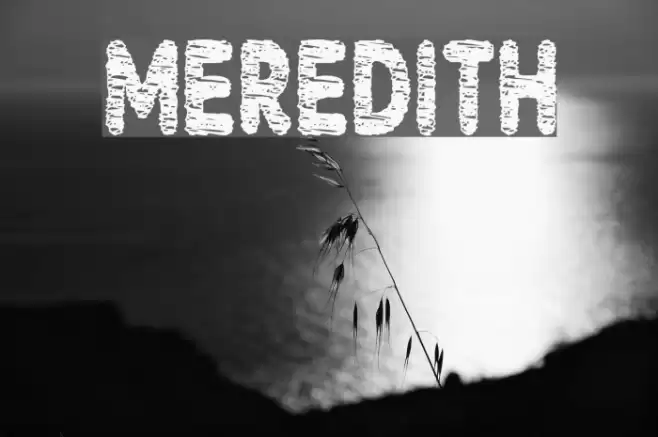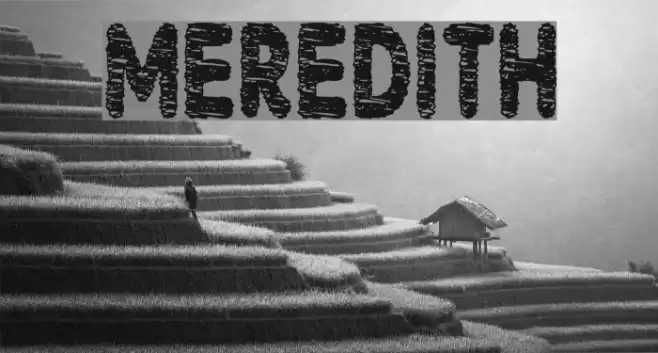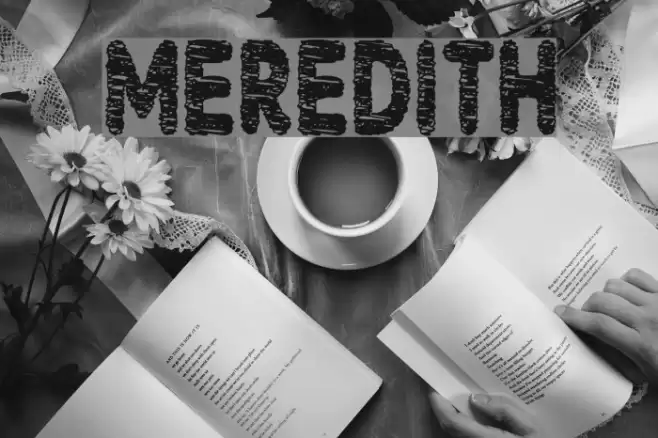
Meredith Font
Meredith Description
This font features a bold, textured design that gives it a hand-drawn, artistic appearance. The characters are filled with a rough, sketch-like texture, which adds a unique and creative flair. The uppercase and lowercase letters maintain a consistent style, with rounded edges and a slightly irregular form that enhances the handmade feel. The numbers and special characters follow the same design principles, ensuring a cohesive look across all glyphs. This font is ideal for projects that require a playful and informal touch, such as children's book covers, creative posters, or artistic branding materials.
A bold, textured font with a hand-drawn, artistic style from Distorted Eroded fonts.
- Proposed Projects: Ideal for children's book covers, creative posters, and artistic branding materials.